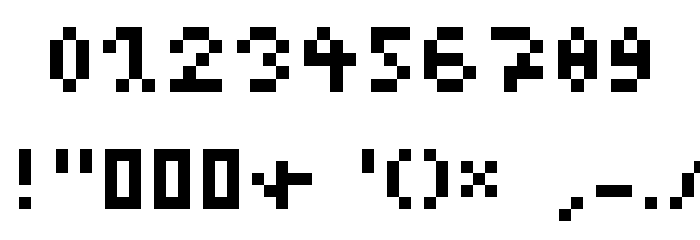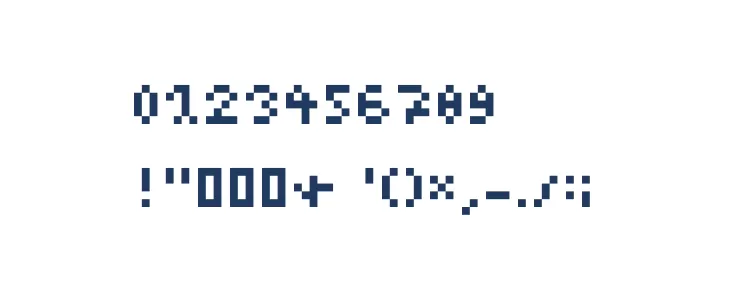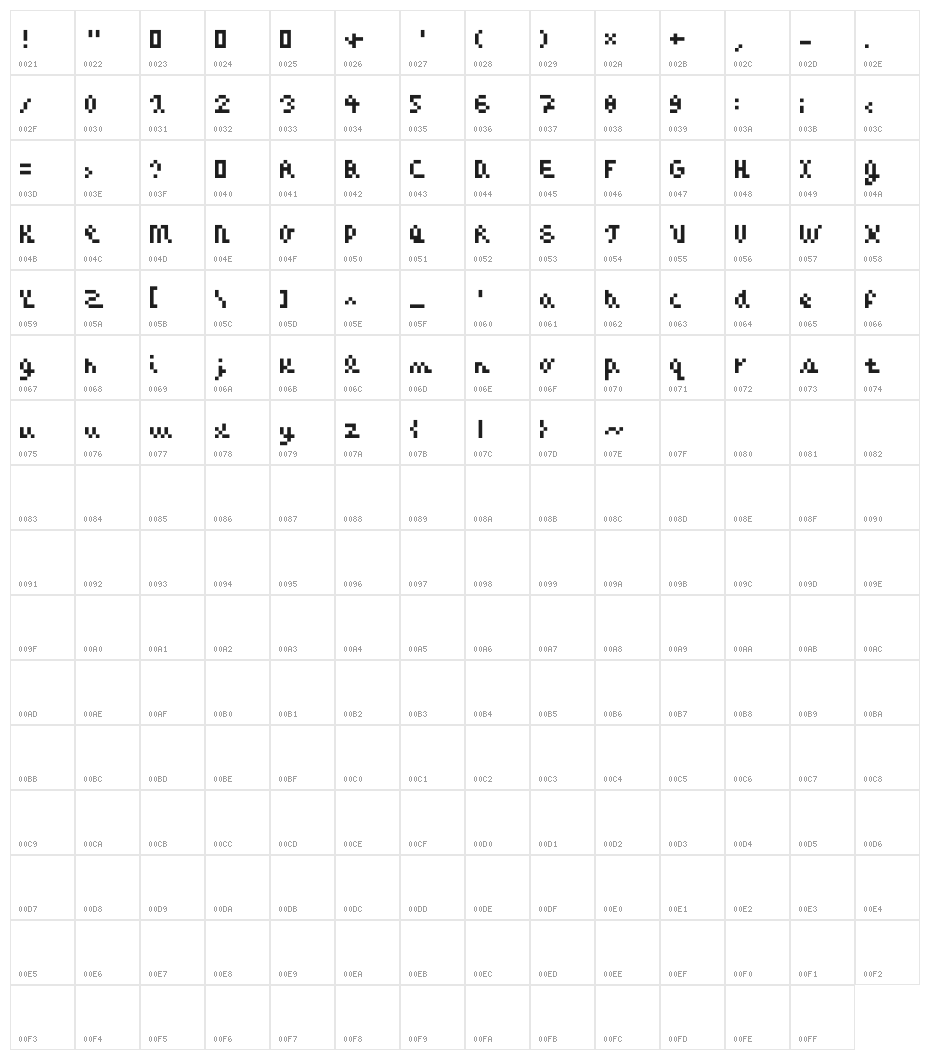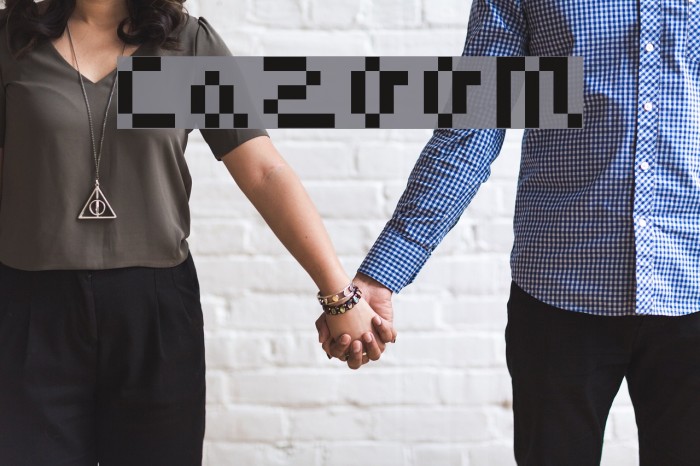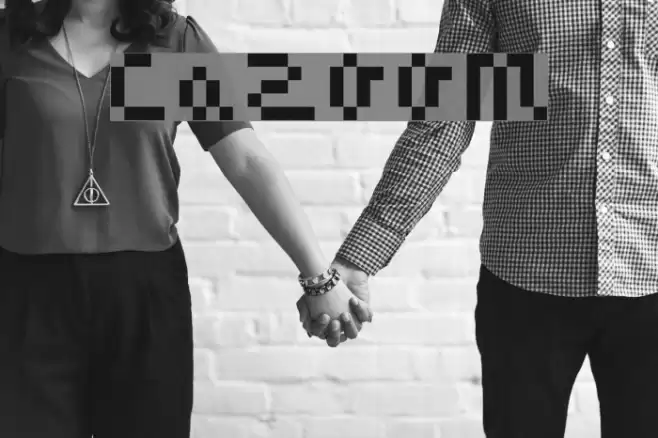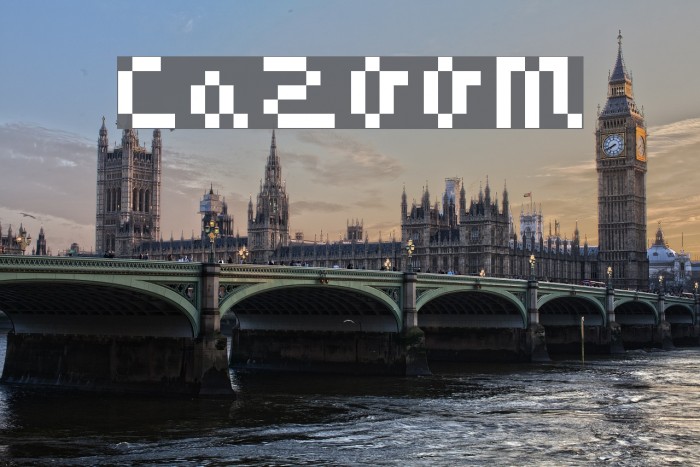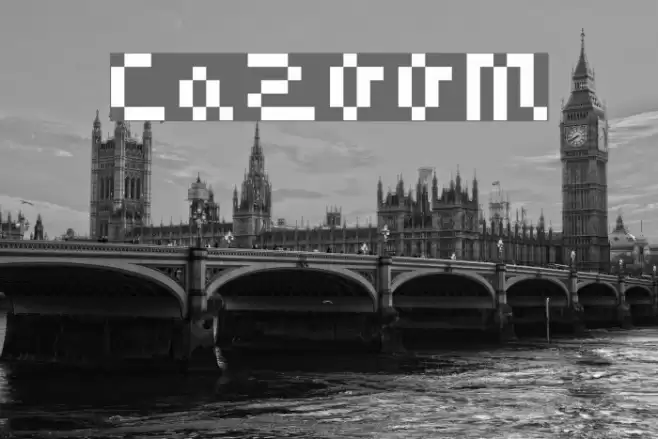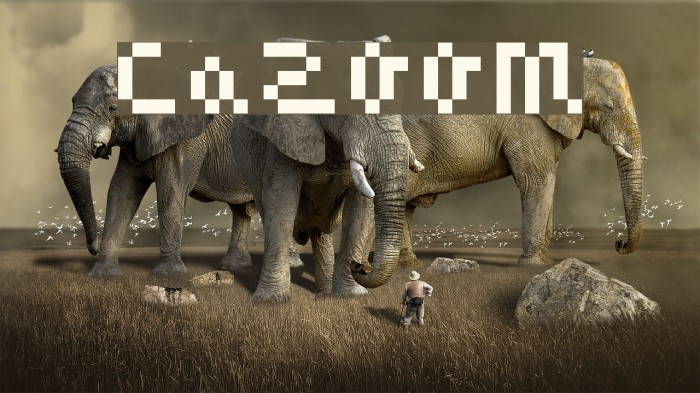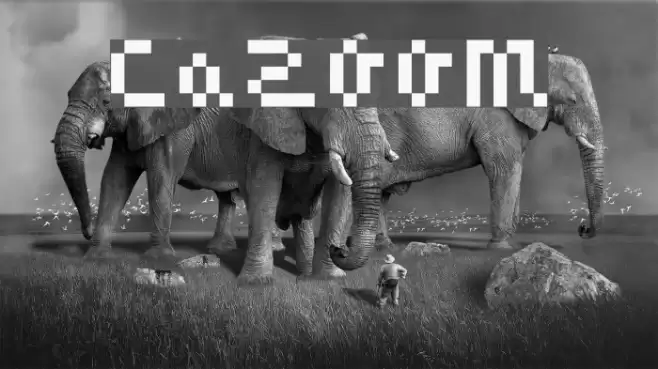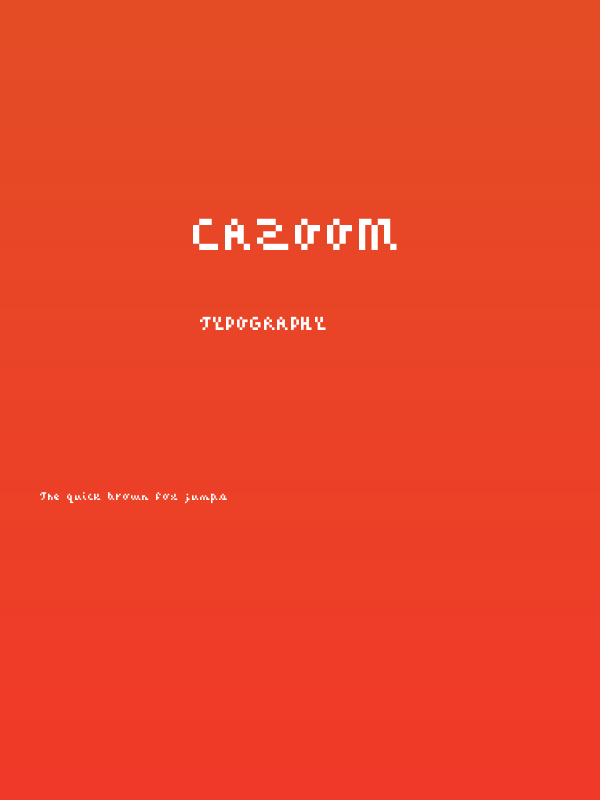
CaZOOM Font
CaZOOM Description
This font features a pixelated, blocky design reminiscent of early digital displays and retro video games. Each character is constructed with a grid-like pattern, giving it a distinctly digital and geometric appearance. The uppercase and lowercase letters maintain a consistent height, contributing to a uniform look. Numbers and special characters follow the same pixelated style, ensuring cohesive visual harmony across all glyphs. The font's simplicity and clarity make it ideal for projects that require a nostalgic or tech-inspired aesthetic.
| Use Case | Headlines, Logos, Digital displays |
| Proposed Projects | Ideal for video game design, digital art projects, retro-themed posters, and tech-inspired branding. |